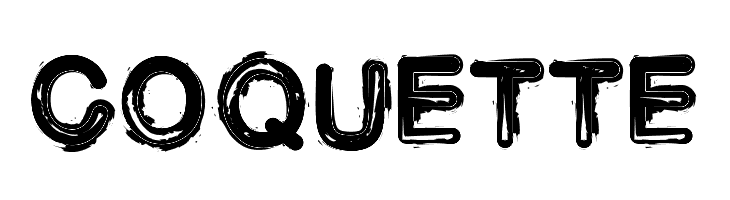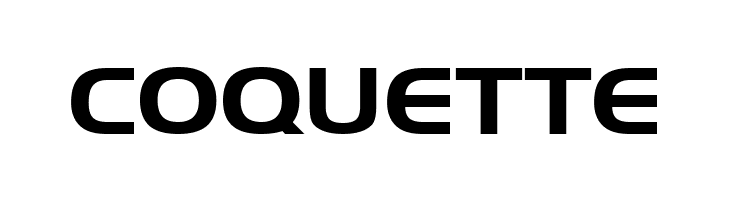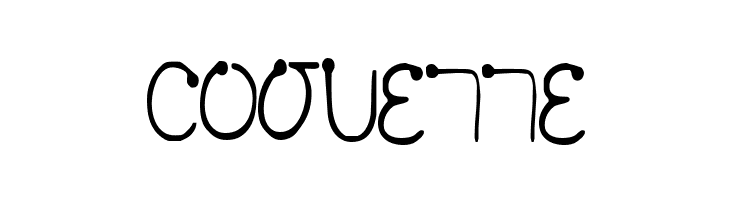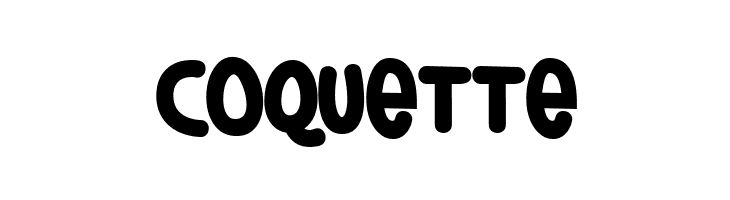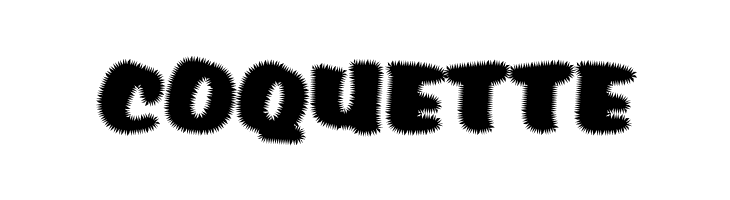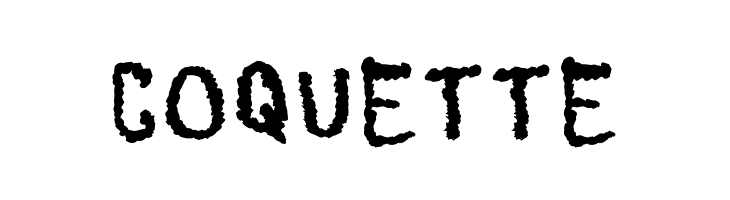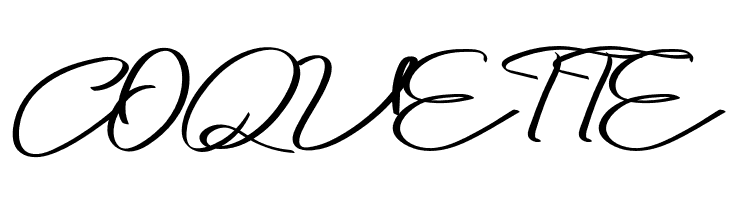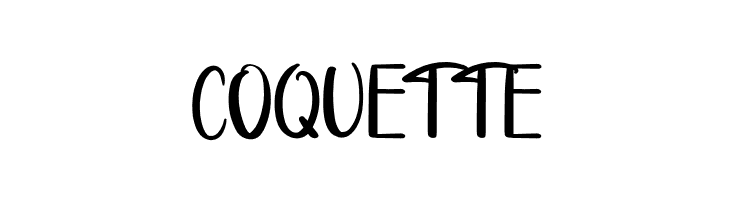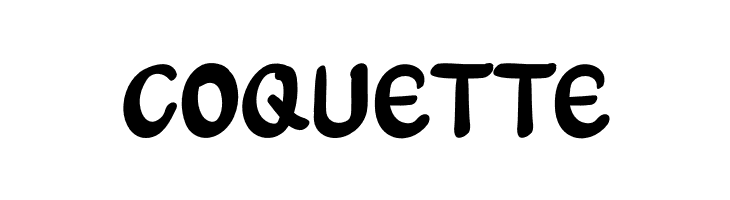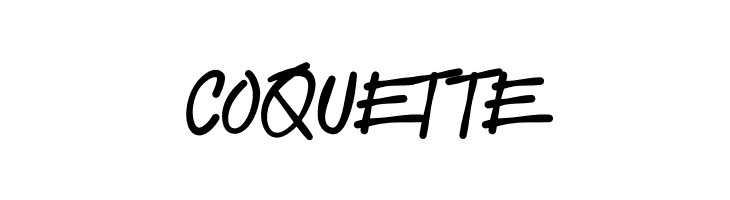
A modern, clean sans-serif font with uniform strokes and excellent readability.
A bold, three-dimensional font with a vintage-inspired shadow effect.
Bold, handwritten script font with a casual style.
A flowing, cursive font with elegant loops and swashes.
A decorative font with intricate cut-out patterns and a bold, artistic style.
A clean, modern sans-serif font with consistent stroke thickness and balanced spacing.
A bold, robust font with thick strokes and balanced spacing.
A bold, italicized font with classic elegance and dynamic flair.
A classic italic font with elegant curves and refined style.
A playful and modern font with circular elements in its design.
A bold, brushstroke-style font with a playful, artistic flair.
A dynamic italic font with smooth, flowing strokes and moderate contrast.
A modern, geometric font with elegant, sleek lines and a sophisticated style.
A playful, handwritten font with smooth curves and a casual style.
A bold, distressed font with a grungy, textured appearance.
A clean, modern sans-serif font with medium contrast and balanced spacing.
A sleek and modern italic font with smooth curves and elegant slant.
A dot matrix font with a digital, retro aesthetic.
A bold, modern font with geometric shapes and clean lines.
A bold, dynamic script font with a hand-drawn, energetic style.
A bold, dynamic script font with flowing, hand-drawn calligraphy style.
A bold, geometric font with angular strokes and playful design.
A playful, outlined font with bold uppercase and handwritten lowercase letters.
A bold, playful font with rounded edges and a hand-drawn look.